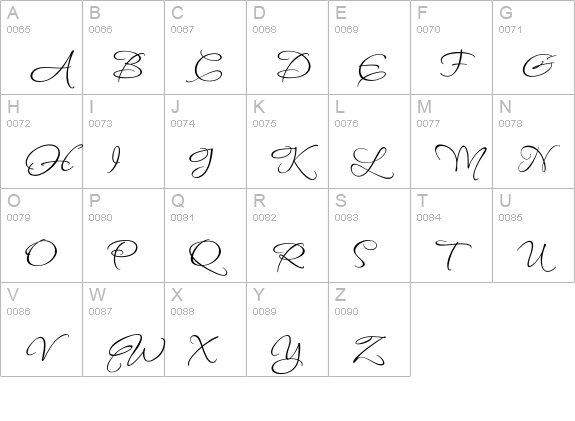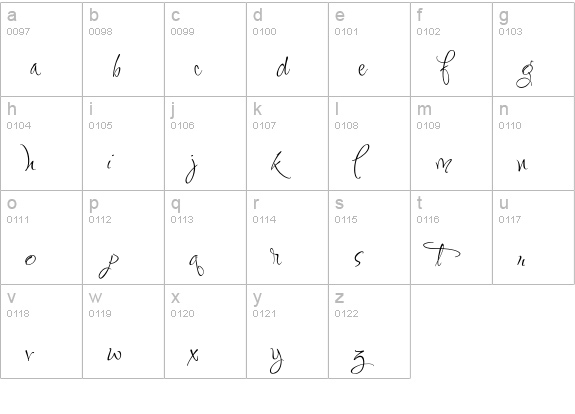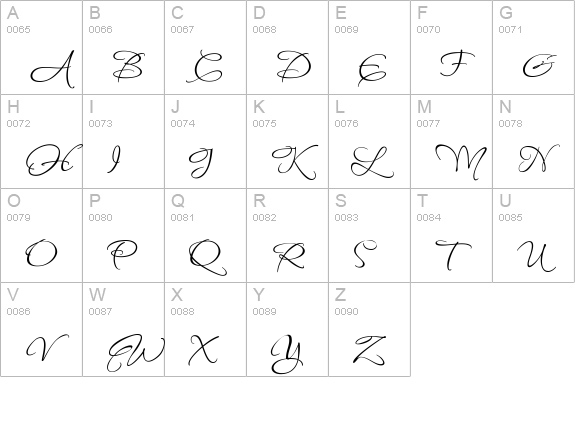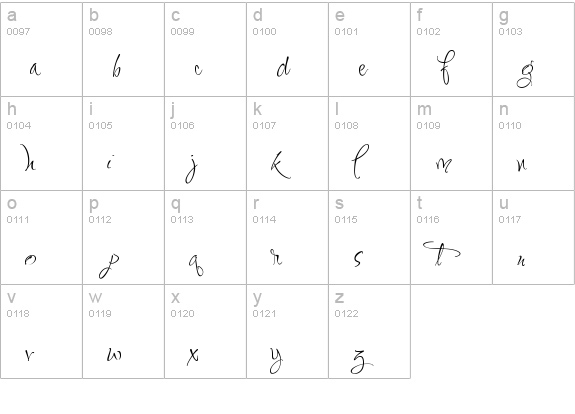
FugglesSix Font Details
FugglesSix font is a unique and stylish typeface that combines modern aesthetics with a touch of vintage charm. Its sleek lines and elegant curves make it perfect for a wide range of design projects, from branding to packaging to web design. This versatile font is sure to make your text stand out and leave a lasting impression on your audience. What's even better is that FugglesSix font is completely free to download at FontsMarket.com. Yes, you read that right - this high-quality font can be yours at no cost at all. Don't miss out on the opportunity to enhance your designs with this beautiful and versatile typeface. Download FugglesSix font today and take your projects to the next level!